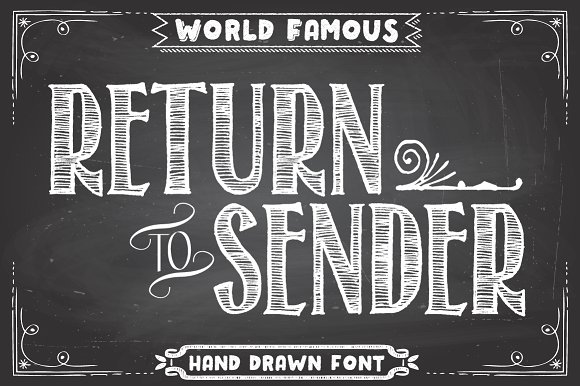
Introducing the Return to Sender Font! Created by Tom Kolter, this display font family is a true work of art. If you're searching for an expressive and fun font that's guaranteed to grab attention, look no further. Return to Sender is perfect for designers and creatives who want to add a unique touch to their work.
With its bold and playful style, Return to Sender is a font that will make your designs stand out from the crowd. Whether you're creating a poster, logo, or any other graphic design project, this font will elevate your work to a whole new level.
One of the best things about Return to Sender is its versatility. It can be used for a wide range of projects, from bold and attention-grabbing headlines to more subtle and elegant text. With a variety of weights and styles to choose from, this font offers endless possibilities for your designs.
But that's not all. Return to Sender is also incredibly easy to use. With its clear and legible characters, you won't have any trouble getting your message across. Plus, it's available for instant download, so you can start using it right away.
So why choose Return to Sender? Well, for starters, it's a font that's full of personality. It's bold, playful, and expressive – perfect for designers who want to make a statement. But it's also versatile and easy to use, making it a great choice for any project.